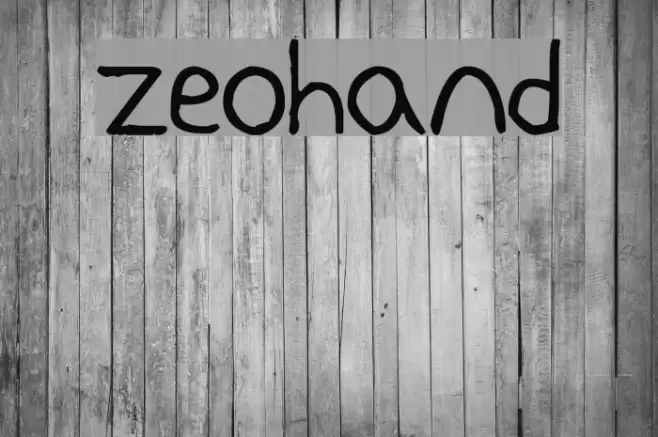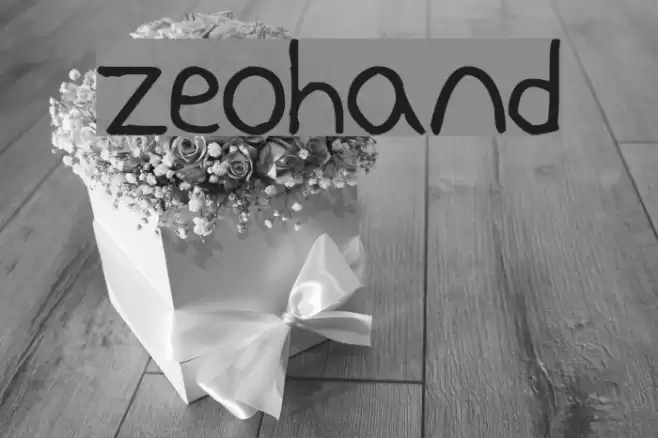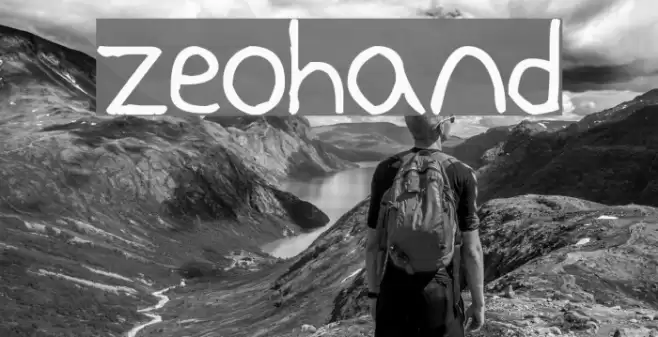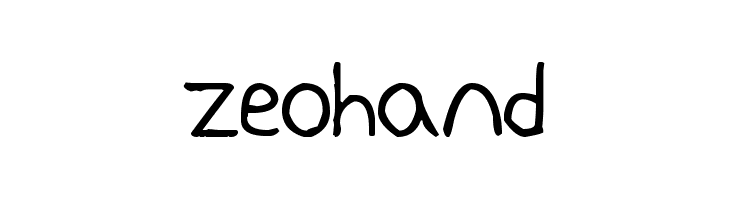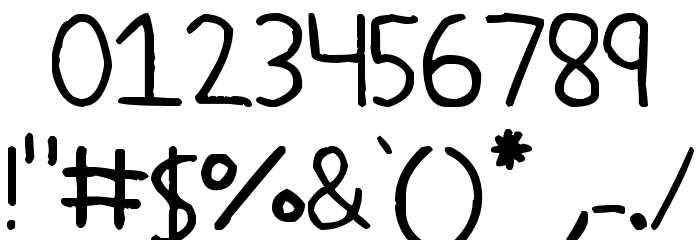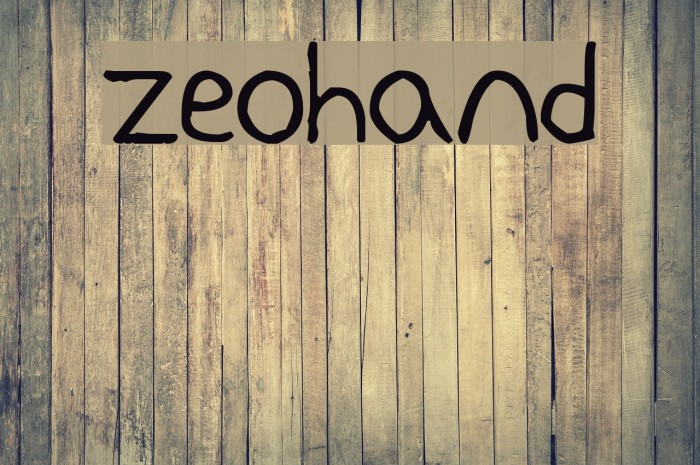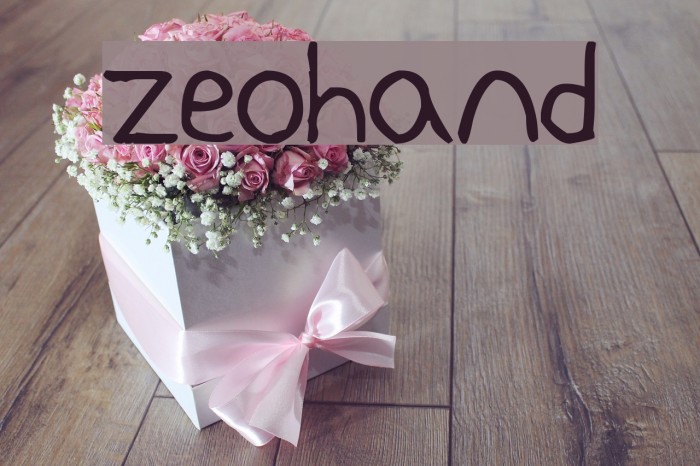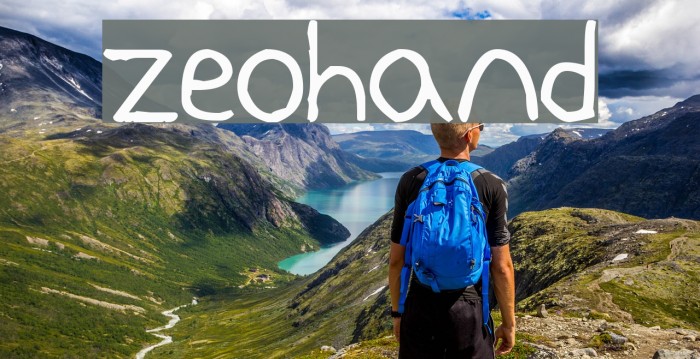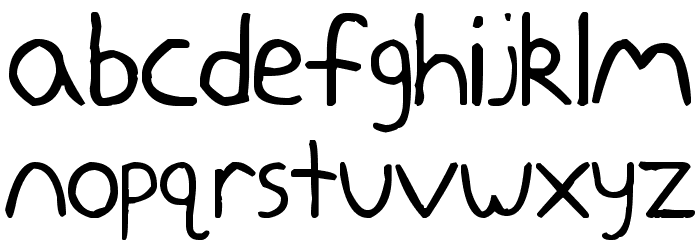
zeohand Font
zeohand Description
This font exhibits a playful and informal handwritten style, characterized by its irregular strokes and casual appearance. The letters are slightly uneven, giving it a personal and approachable feel. The uppercase and lowercase letters maintain a consistent flow, while the numbers and special characters complement the overall style. The font's organic and natural look makes it suitable for projects that require a touch of personality and warmth.
A playful, informal handwritten font with a casual and approachable style from Handwritten fonts.
- Proposed Projects: Ideal for greeting cards, children's books, personal blogs, and creative branding projects.
- Overall Style: Casual, Playful
- Use Case: Headlines, Informal text, Creative projects